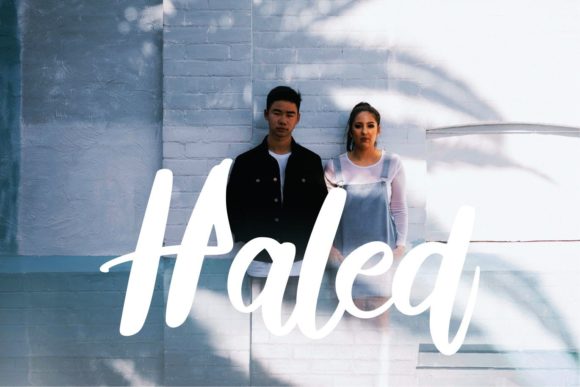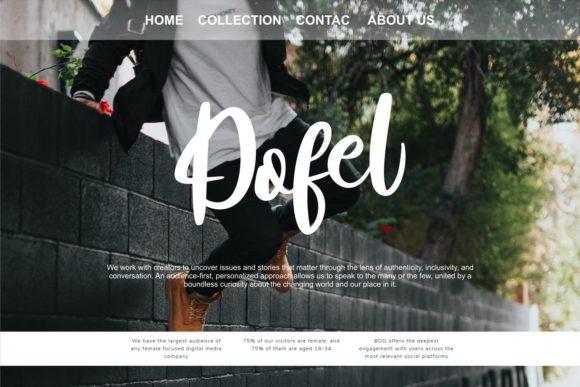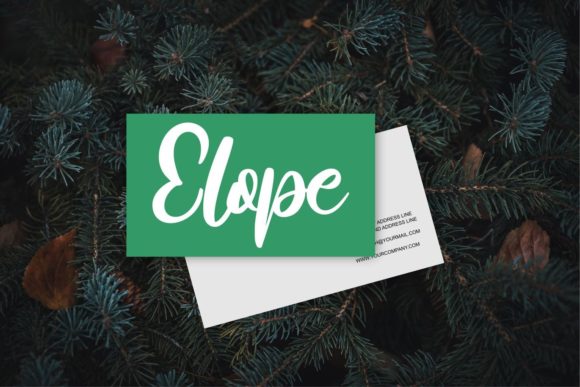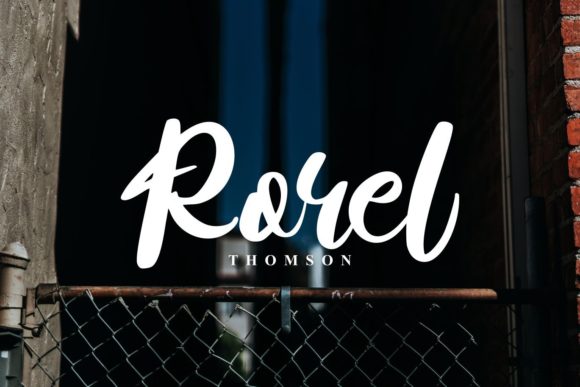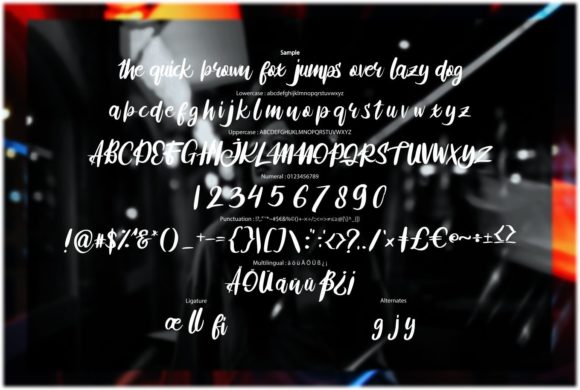
Introduction to Railway Script Font
Have you ever been working on a creative project, pouring your heart and soul into every detail, only to feel like something is missing? You’ve got the perfect idea, the perfect color palette, but the typography just doesn’t quite fit? That’s where the Railway Script Font comes in – a flowing handwritten font that adds an elegant touch to any design.
With its incredibly distinct and timeless style, Railway Script Font is the perfect design resource for any creative project. Whether you’re working on a logo, a brochure, or a website, this high-quality font is sure to elevate your design to the next level. And the best part? It’s available for free download, making it a valuable resource for designers on a budget.
Key Features of Railway Script Font
- High-quality, hand-drawn design suitable for creative projects requiring a unique touch.
- Transparent background option allows for seamless integration with various backgrounds and design elements.
- Comes in a single weight, making it easy to use in a variety of design contexts.
- Designed with a high resolution (300 DPI), ensuring crisp and clear text display, even at larger sizes.
- Suitable for use in logos, branding materials, and other creative projects where a distinctive, handwritten feel is desired.
Honest Review: Railway Script Font
I recently stumbled upon the Railway Script Font and I must say, it’s a great addition to any designer’s toolbox. This font is perfect for creating a vintage or nostalgic feel in your designs, and I can see it being used in a wide range of creative projects.
- ✨ High quality design: The Railway Script Font has a beautiful, handwritten feel that’s perfect for adding a personal touch to your designs.
- ✨ Versatile: This font can be used for a variety of design projects, from logos to signage to print materials.
- ⚠️ Transparent background: The font doesn’t have a transparent background, which can make it difficult to use on images with busy backgrounds.
- ⚠️ Limited font sizes: The font may not be suitable for large-scale designs, as it can become difficult to read at larger sizes.
Overall, I’m really impressed with the Railway Script Font and would definitely recommend it to designers looking for a high-quality, free font to add some personality to their designs.
Introduction to Railway Script Font
The Railway Script Font is a unique and elegant design resource that can elevate any creative project. Its high-quality, handwritten style makes it perfect for adding a touch of sophistication to your designs.
Tips for Getting the Most Out of Railway Script Font
To get the most out of the Railway Script Font, use it with a transparent background to create a stunning visual effect. Experiment with different font sizes and colors to add depth and interest to your designs.
Common Use Cases for Railway Script Font
The Railway Script Font is perfect for use in wedding invitations, birthday cards, and other creative projects that require a touch of elegance. It’s also great for use in branding and marketing materials, such as logos and brochures.
Great Vibes Font is a beautiful, elegant script font suitable for creative projects that require a high-end feel. It’s perfect for wedding invitations, magazine covers, and other design resources where a sophisticated touch is needed. When used with a transparent background, Great Vibes Font can add a sense of luxury and sophistication to any design.
Compared to Railway Script Font, Great Vibes Font has a more refined and polished look, making it ideal for high-quality designs. While Railway Script Font has a more rustic feel, Great Vibes Font is better suited for modern and sleek designs.
Carolyna Pro Font is a modern script font that’s perfect for creative projects that require a touch of elegance and sophistication. It’s ideal for use in design resources such as wedding invitations, branding materials, and magazine covers. When used with a transparent background, Carolyna Pro Font can add a sense of depth and dimension to any design.
Q: What is the recommended usage for the Railway Script Font in a creative project?
The Railway Script Font is ideal for creative projects that require a high-quality, elegant script font. It’s particularly well-suited for titles, headings, and other text elements that require a touch of sophistication and refinement. You can use it in conjunction with other design elements, such as images and graphics, to create a visually appealing and engaging design.